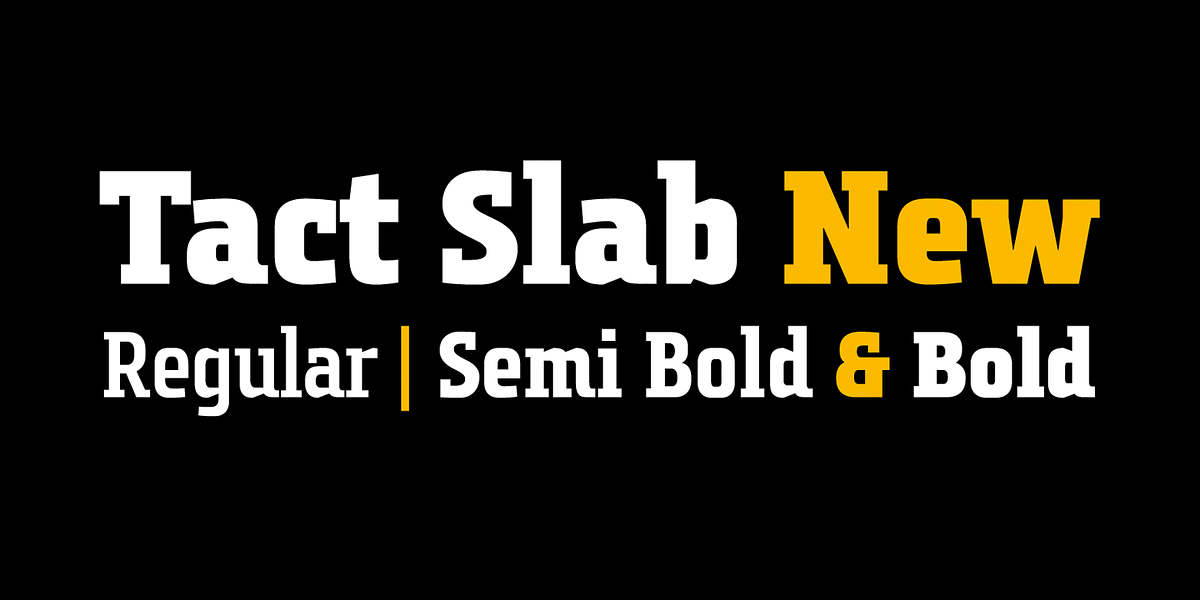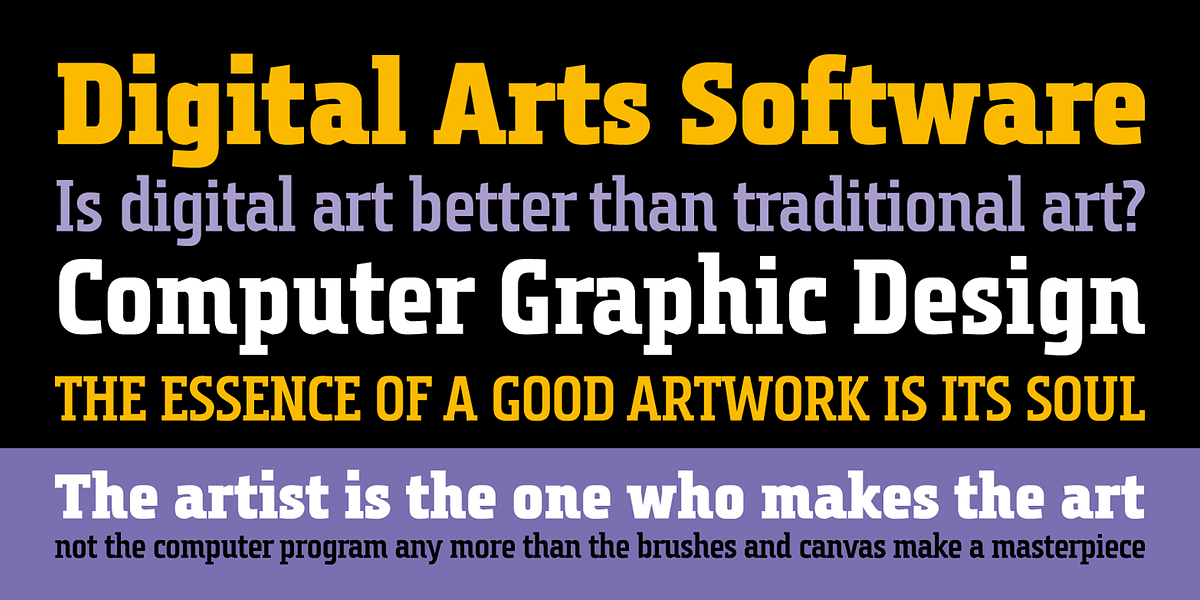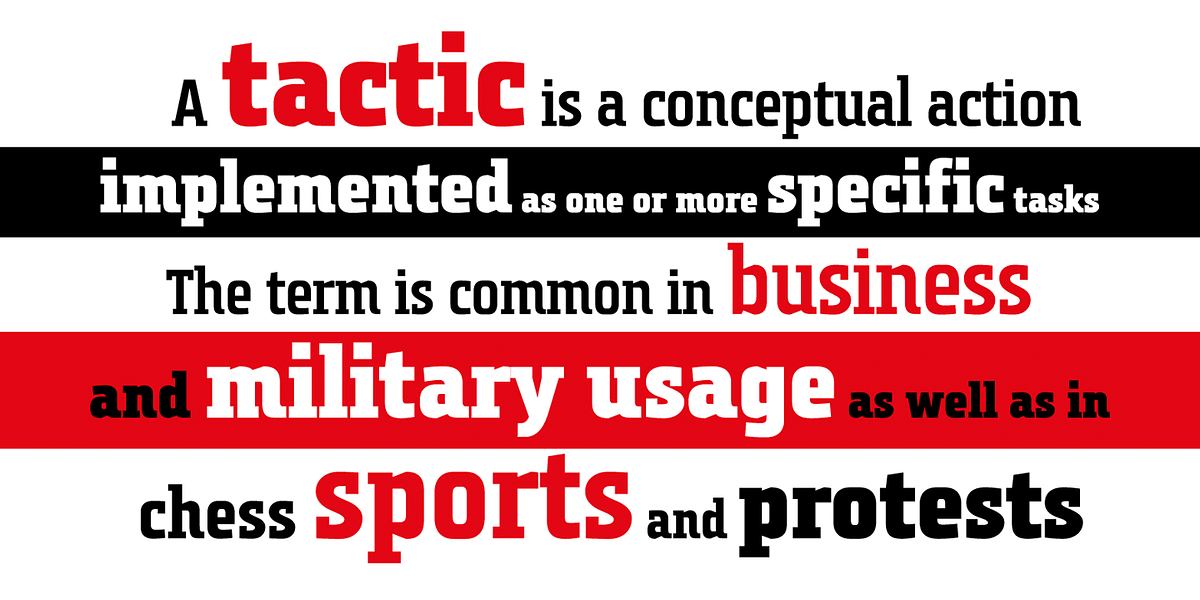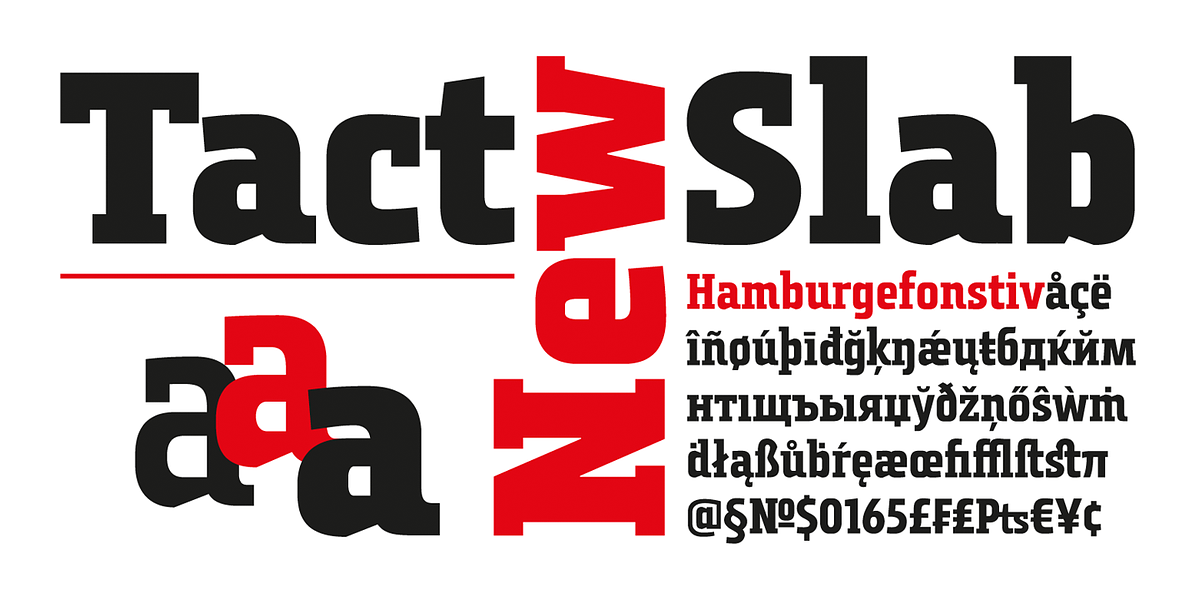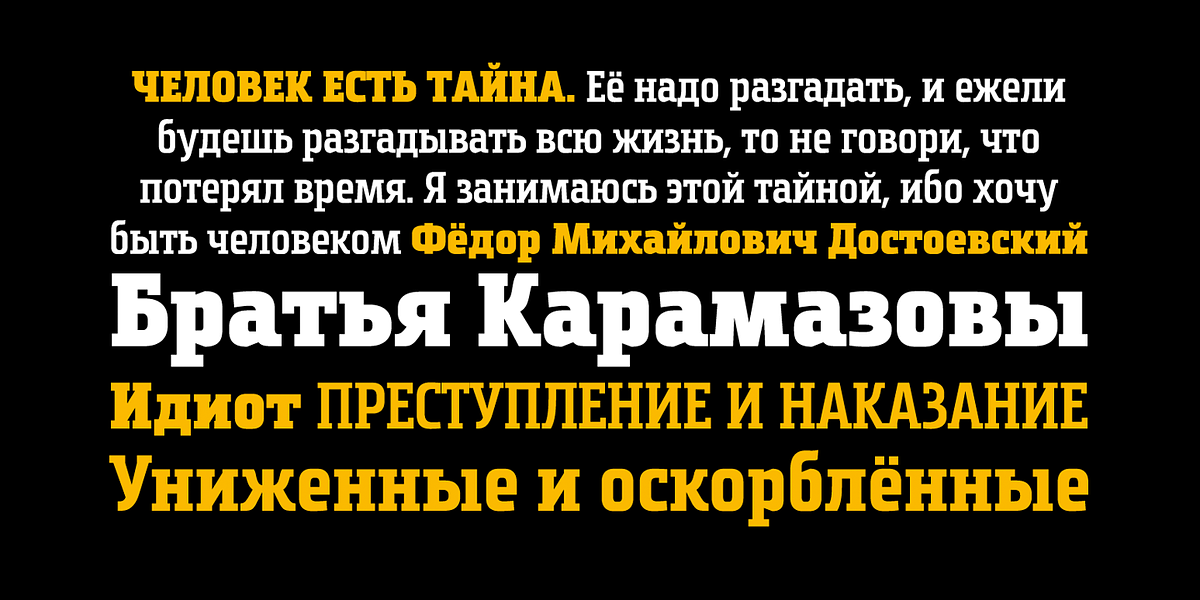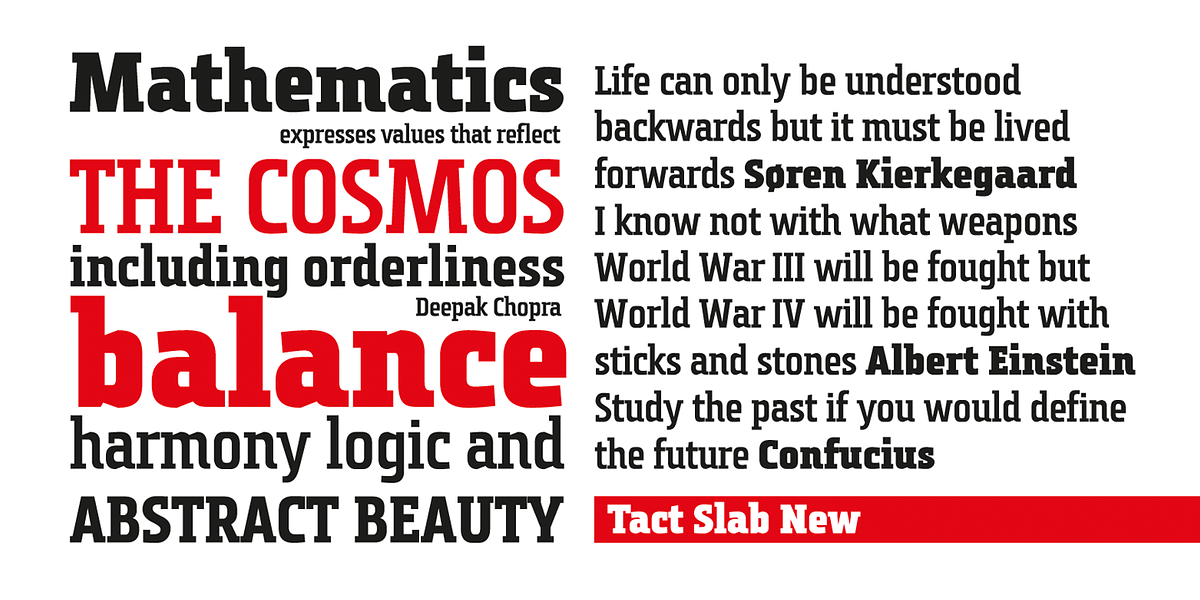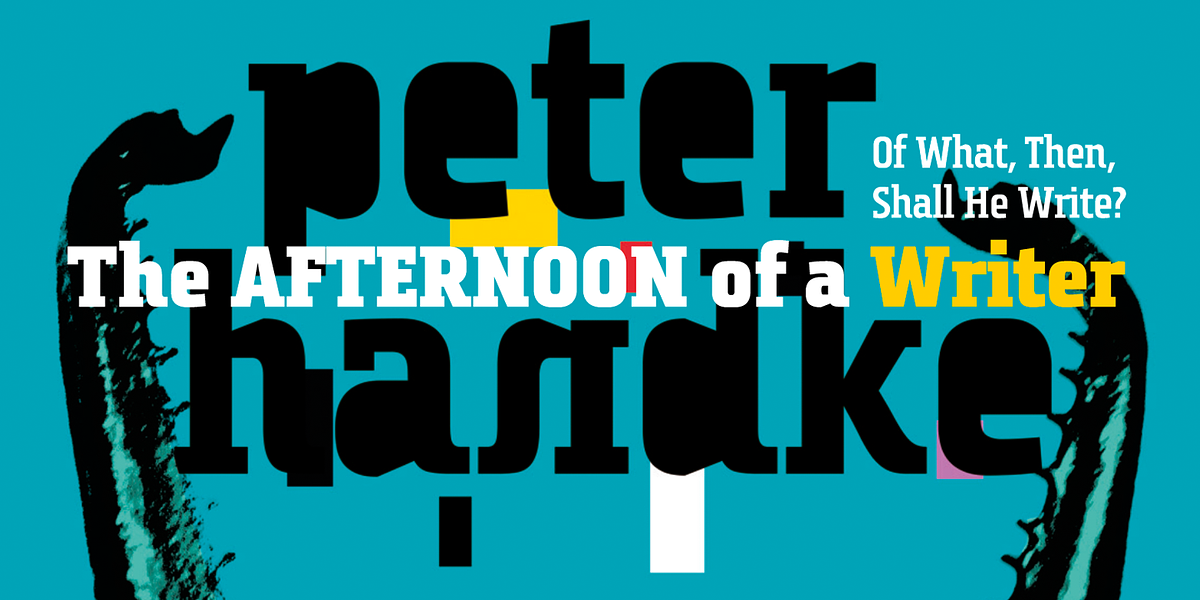
Tact Slab New
Tact Slab New is a geometric slab serif font characterized by its condensed glyphs. It offers three weights and includes an alternative glyph set for versatile use in various graphic designs. The font's geometric style lends itself well to futuristic themes and is suitable for applications such as advertising, posters, and corporate designs.